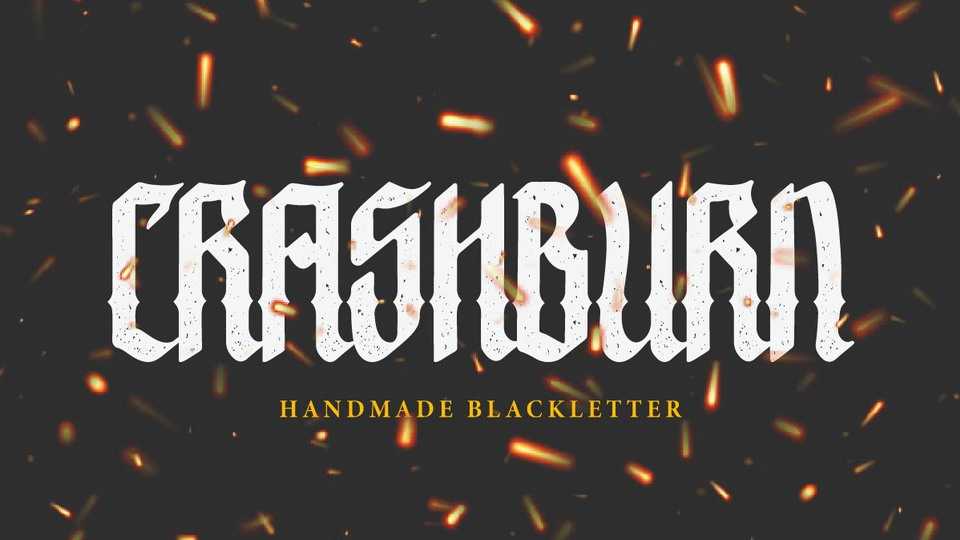
Crashburn font, a unique blackletter typeface. Awesome for merchandise design, streetwear, t-shirt, logo, typography design, poster, packaging, branding or anything else that can make your product looks awesome.